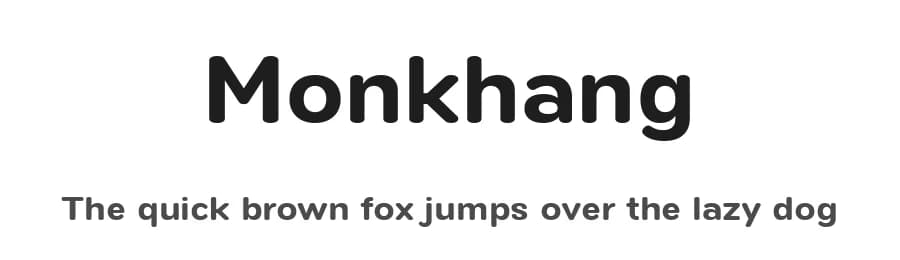
About Monkhang Font
Monkhang Font is a versatile sans-serif font that works for both headings and body text. Pair it with a contrasting serif or slab serif font to add visual interest and a clear distinction between titles and body copy.
Monkhang Font
by Jipatype